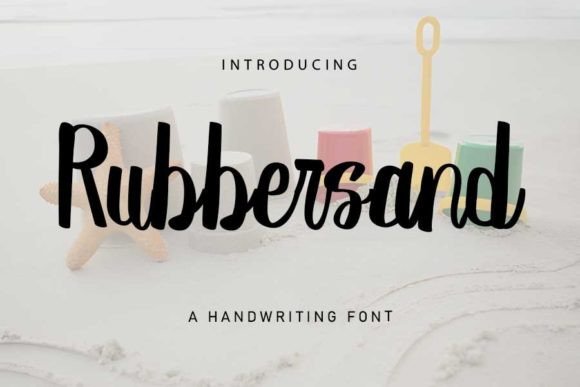
Embark on a typographic voyage with Rubbersand Font, a whimsical script font family crafted by Leontyn Art, designed to infuse charm and elegance into your creative endeavors. Its thin, playful strokes exude a handwritten flair that effortlessly adds a personal touch to any project.
Journey through the world of digital design, presentations, or greeting card creation with Rubbersand Font as your faithful companion. Its versatility knows no bounds as it seamlessly blends with various digital and print media, transforming your ideas into captivating realities. Dive into the world of crafts, where Rubbersand Font's playful nature shines through, adding a touch of whimsy and charm to your handmade creations.
Let Rubbersand Font become your go-to font for expressing your individuality. Its charming personality breathes life into your words, captivating your audience and leaving an unforgettable impression. Embrace the power of Rubbersand Font and unleash your creativity, crafting designs that dance with delight and resonate with your unique style.
With Rubbersand Font, you hold the key to unlocking a world of typographic possibilities. Experience the magic of a font that transforms the ordinary into the extraordinary, igniting a spark of inspiration with every stroke. Dive into a sea of creativity and let your imagination run wild, knowing that Rubbersand Font will be there to elevate your vision to new heights.